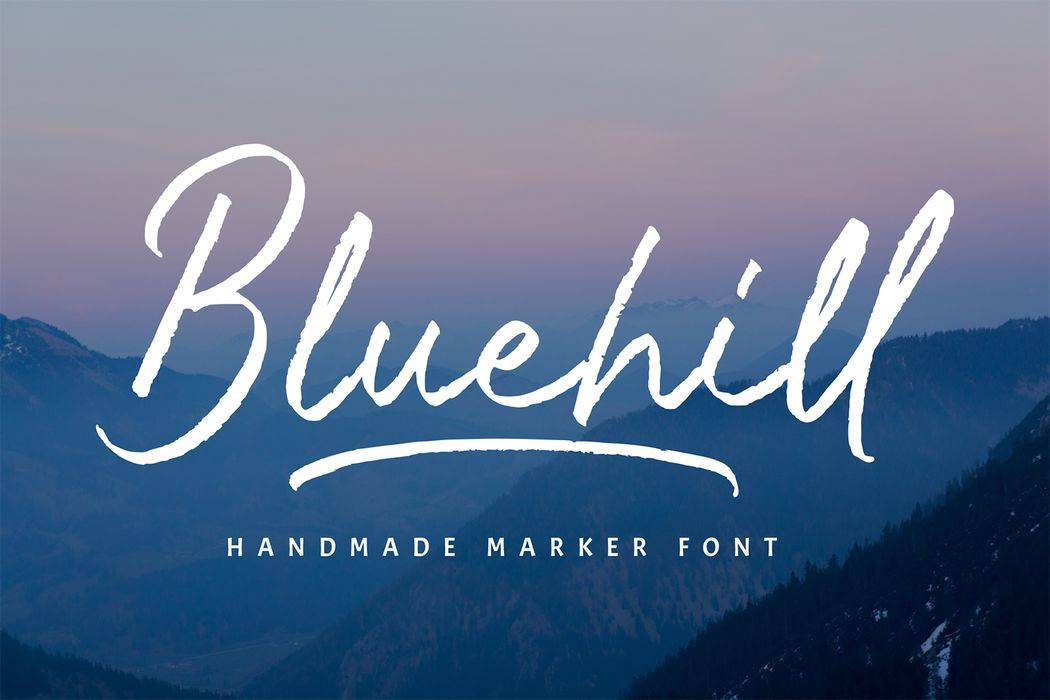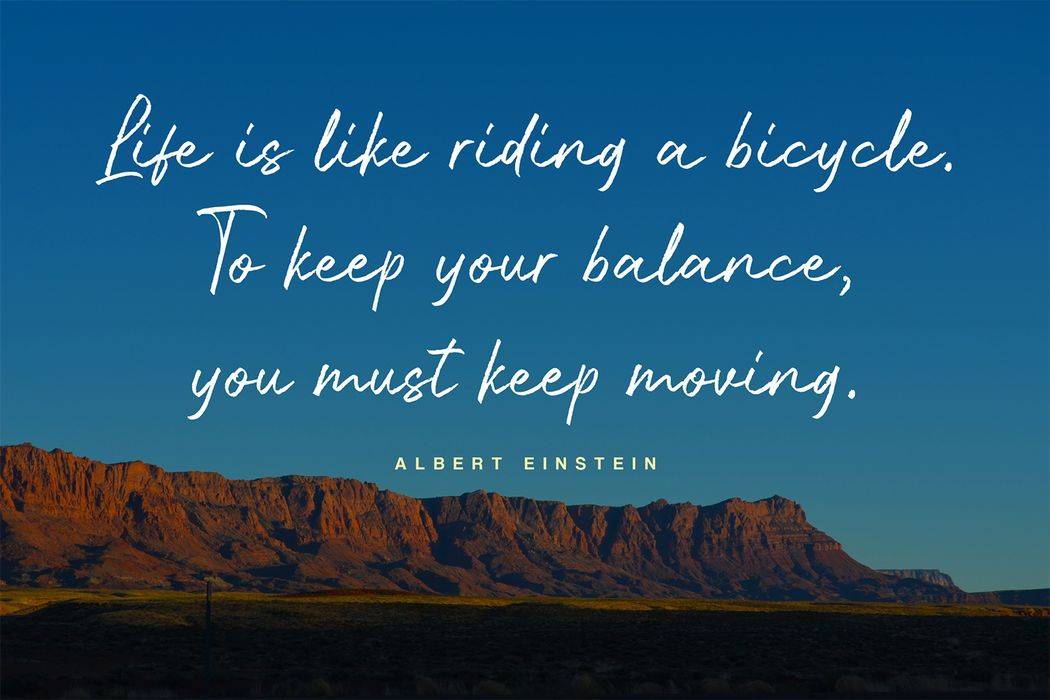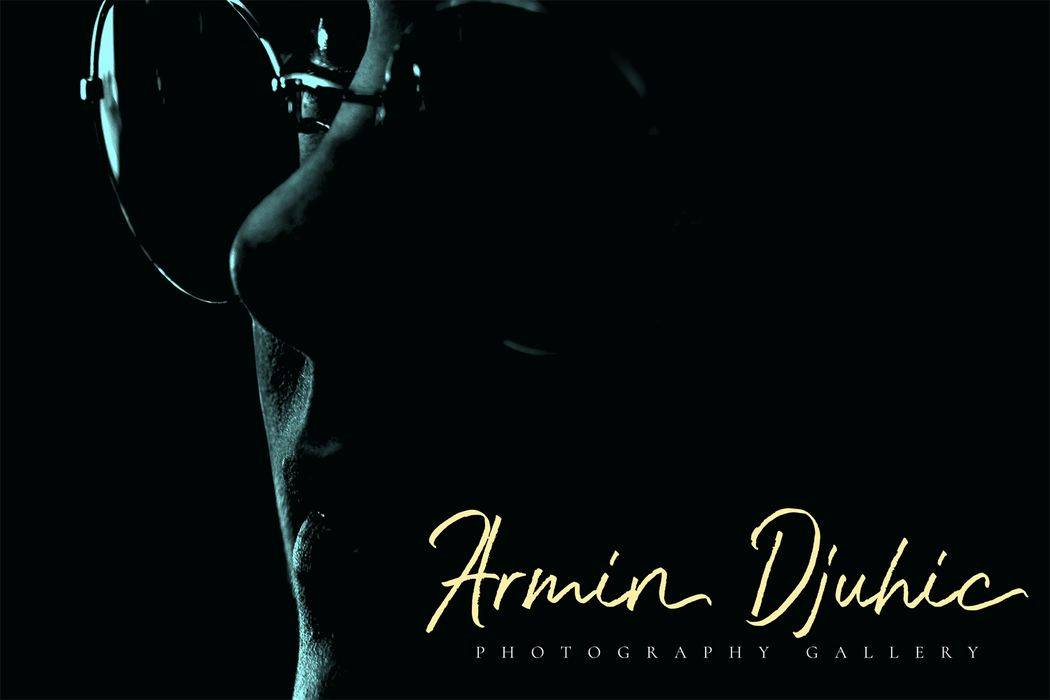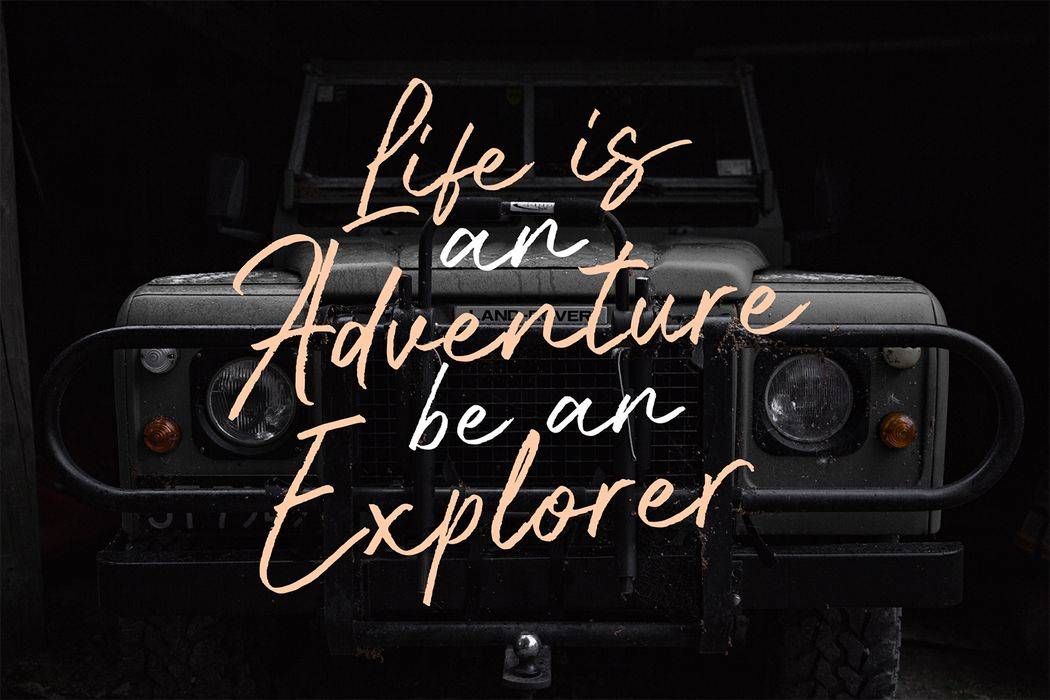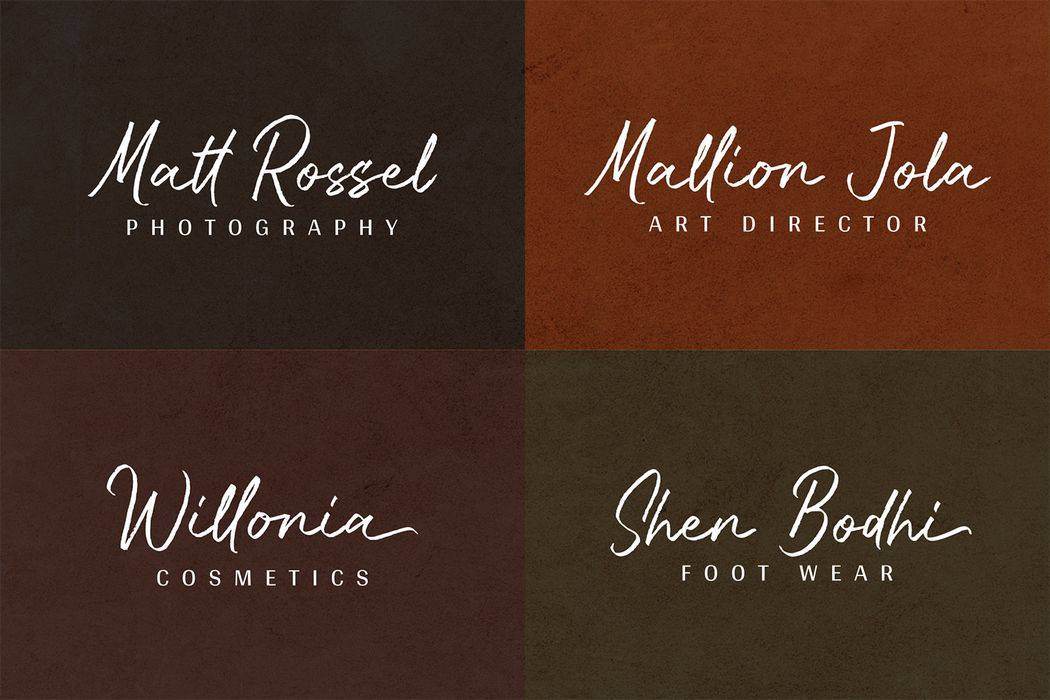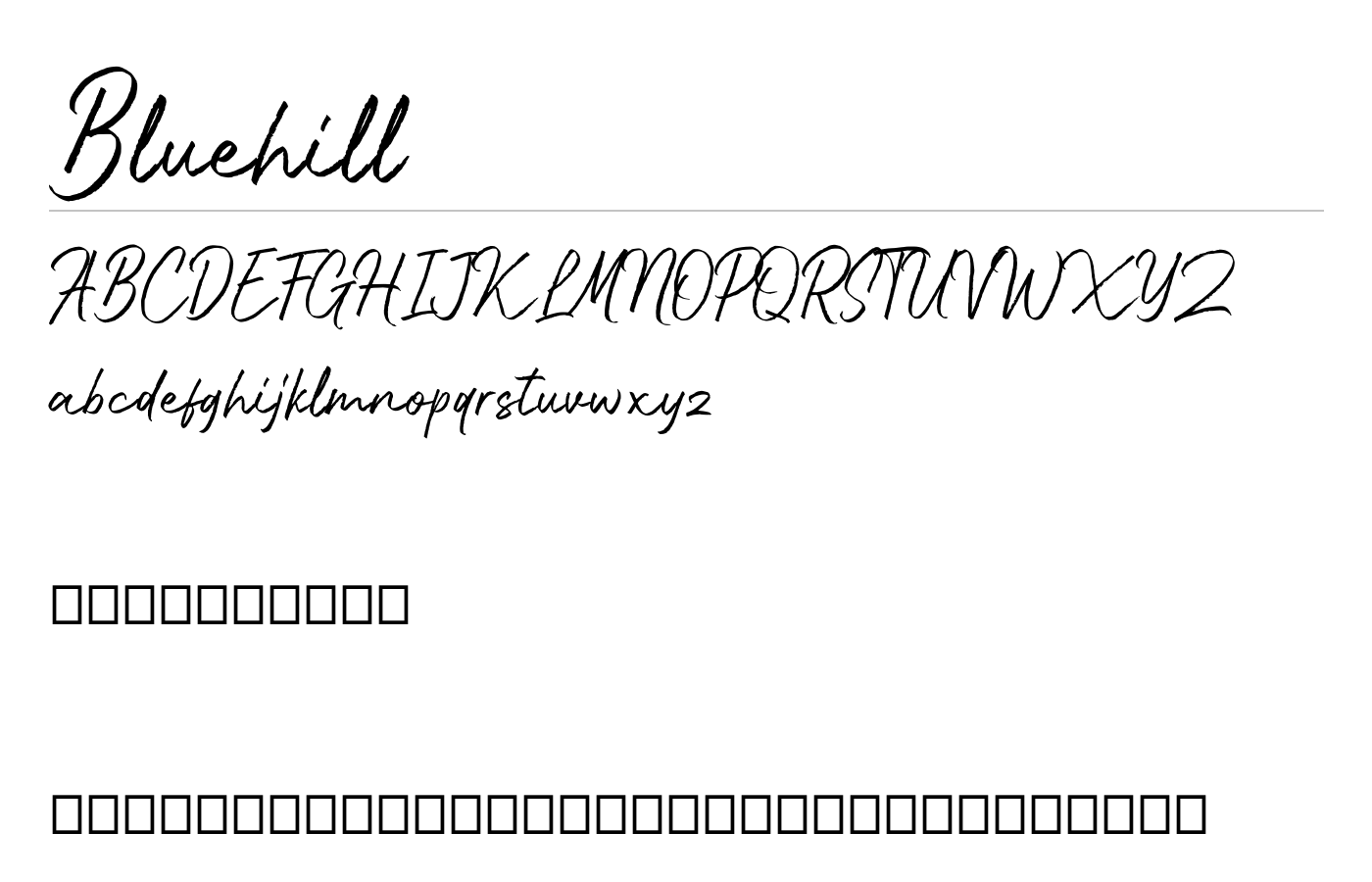
Bluehill is a graceful script font with a hand-drawn, casual elegance, featuring clear, flowing letterforms that blend softness and refined style. Its light weight, moderate contrast, and fluid strokes make it an excellent choice for invitations, branding, and stylish headlines where a personal yet polished touch is desired. This font works well when you want to convey warmth, creativity, and subtle sophistication.
Bluehill Font
About Bluehill Font